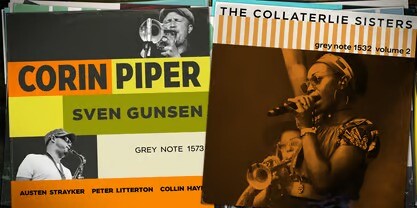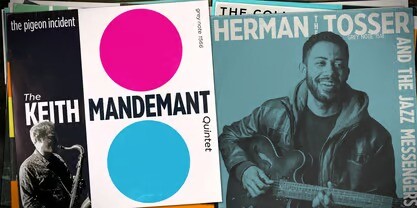
Modica Pro Font
Modica Pro Font is here to expand upon the success and versatility of the original Modica typeface (2019). Modica has been compressed, condensed, narrowed, widened, and extended to a mega-family of 108 fonts that now includes small caps as well as additional language coverage. ModicaPro is a nimble typeface that can handle a multitude of applications – everything from body copy to retail fashion to corporate identities… why not put ModicaPro to task today?
There are 108 fonts in this family, ranging from Hairline to Ultra weights across six widths in both roman and italic. A single variable font (included with the full family) covers all weights, widths, and italic angle with every increment in between to suit whatever style you prefer. Modica Pro has a character set that covers all Latin European languages.